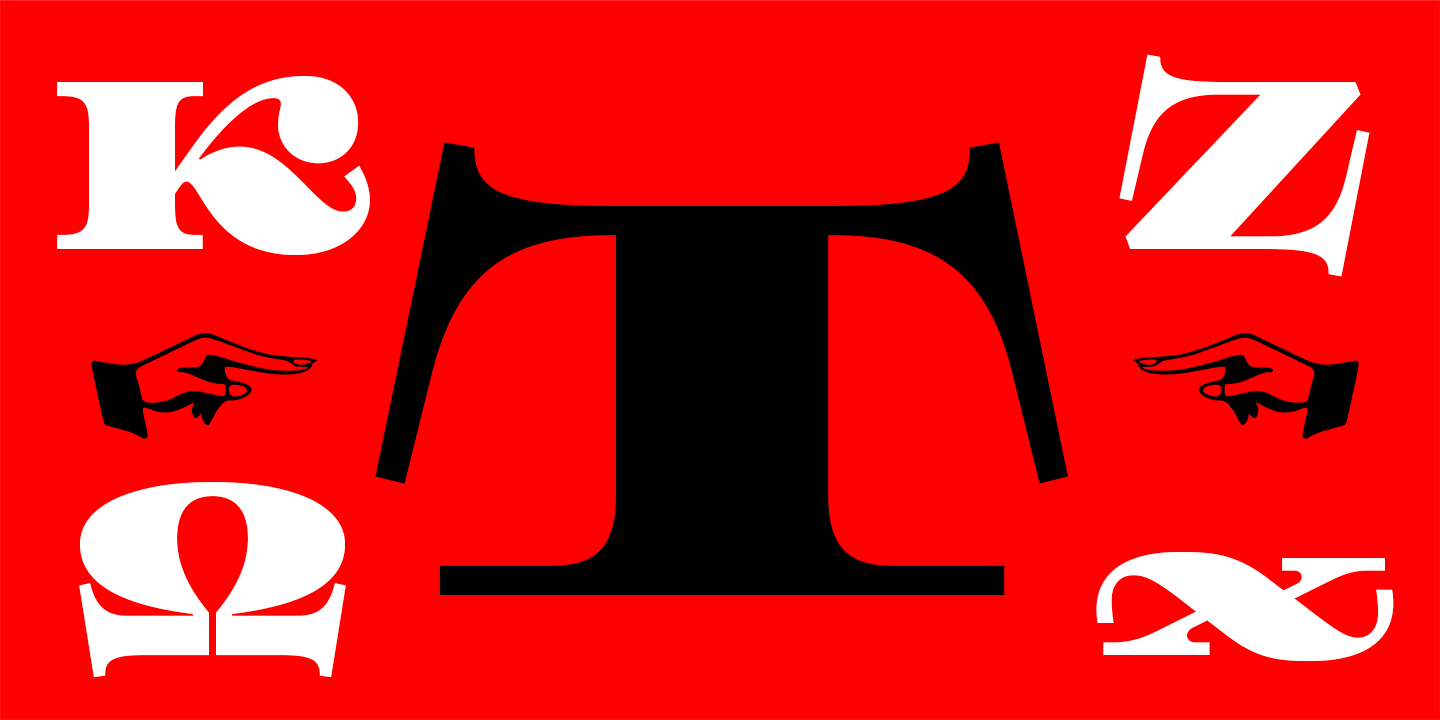
Hypocrite is a wide and black display serif face with a hint of decay and black humor. Handle with care. Shelf-life unlimited. Designed by Alexander Lubovenko and released by Paratype in 2017.